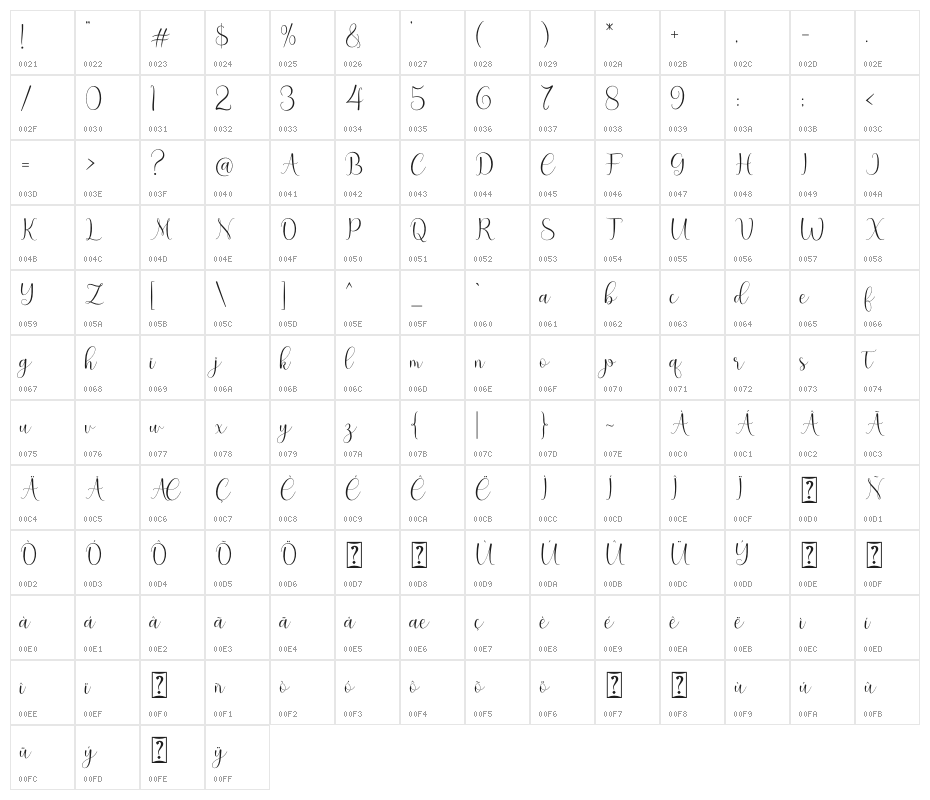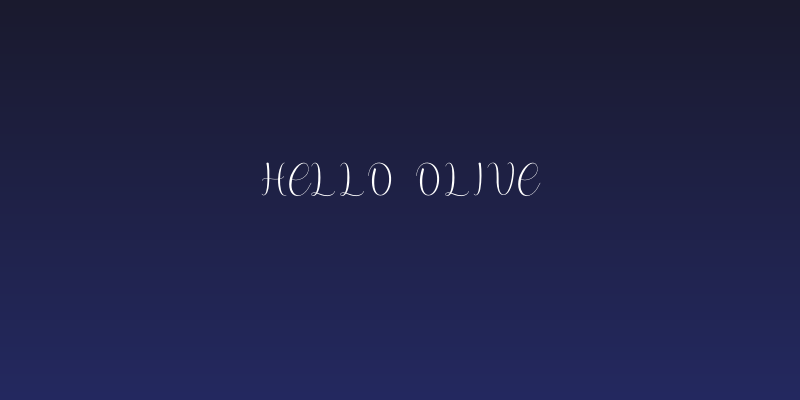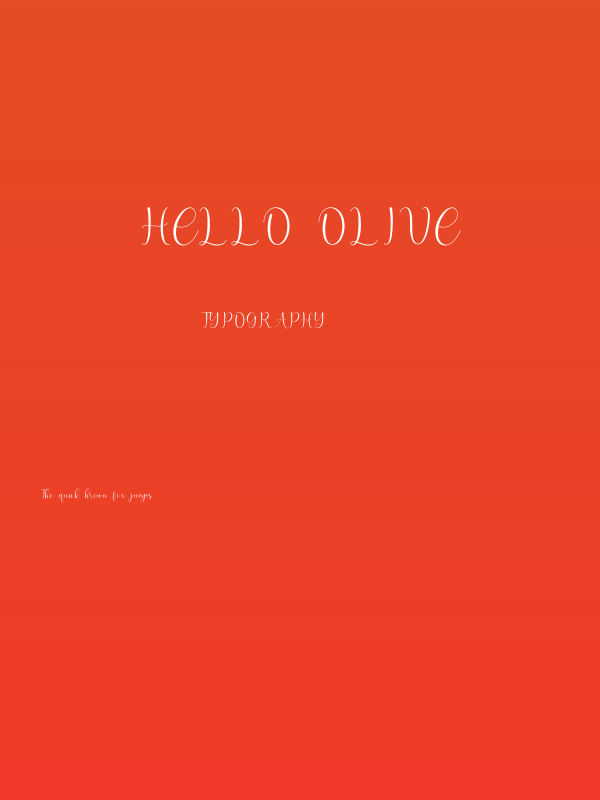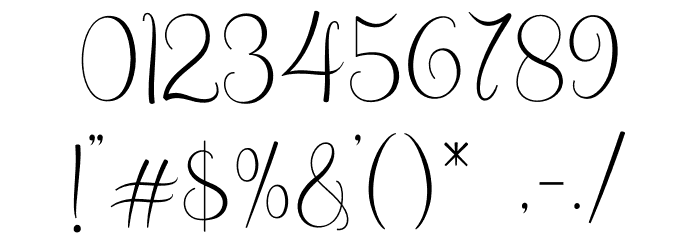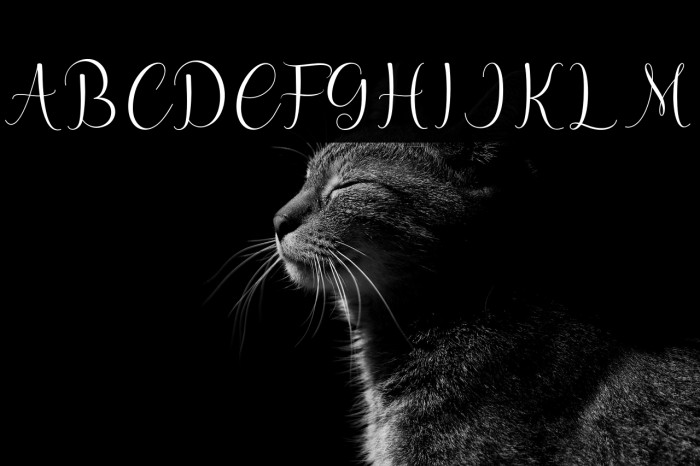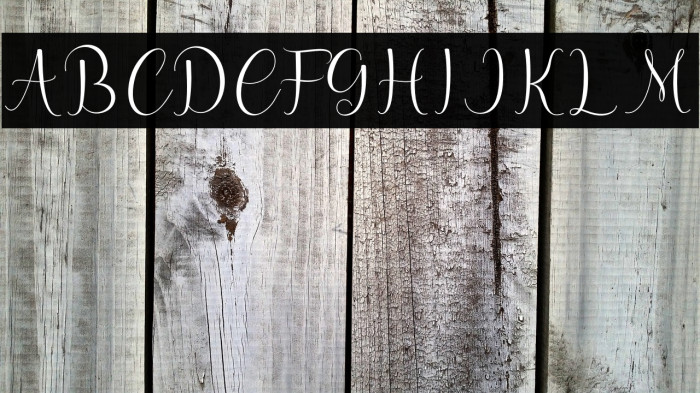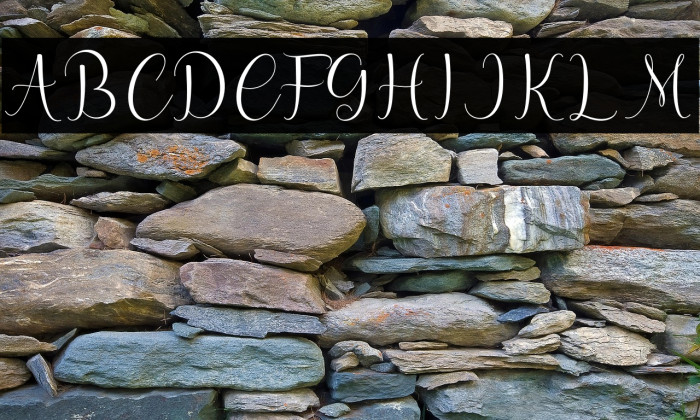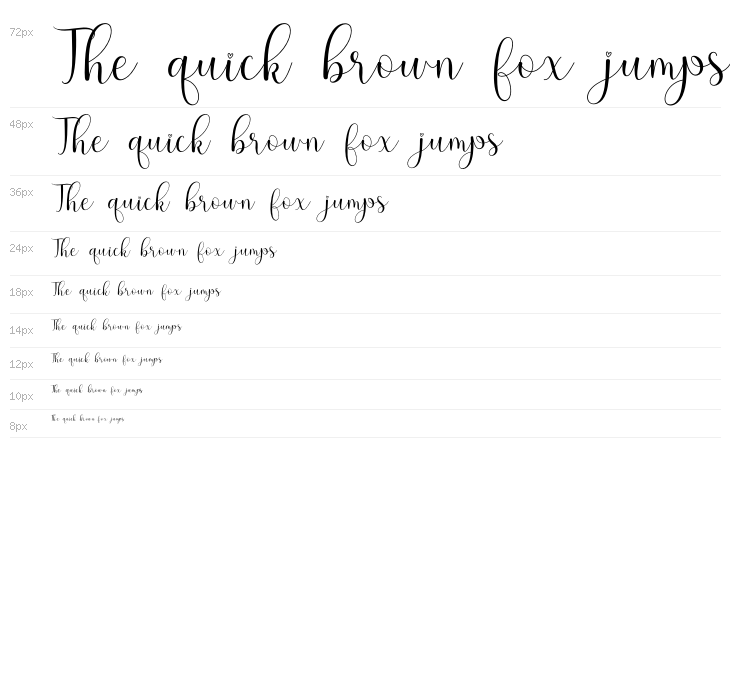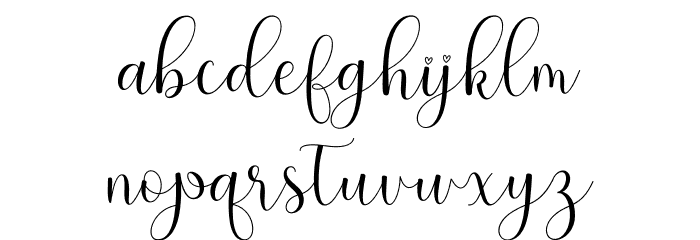
hello olive Font
hello olive Description
This elegant script font features a flowing, cursive style with delicate loops and swashes that give it a sophisticated and graceful appearance. The uppercase letters are characterized by their tall, slender forms with gentle curves, while the lowercase letters maintain a consistent flow with subtle variations in stroke thickness. The numerals are stylishly rounded, complementing the overall aesthetic. Special characters are thoughtfully designed to match the font's elegant style, making it suitable for a variety of decorative purposes. The font's high contrast between thick and thin strokes adds to its refined look, making it ideal for projects that require a touch of elegance and sophistication.
| Proposed Projects | Ideal for wedding invitations, elegant branding, greeting cards, and upscale packaging. |